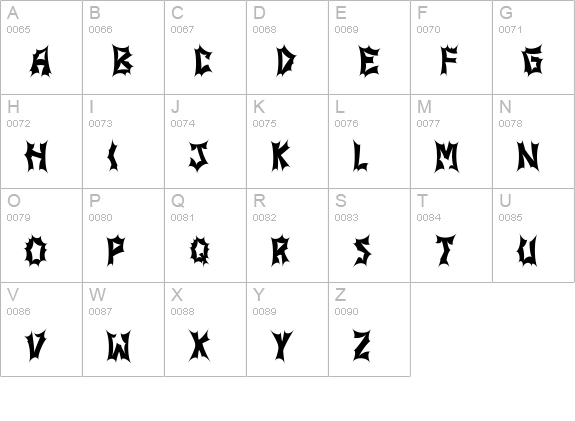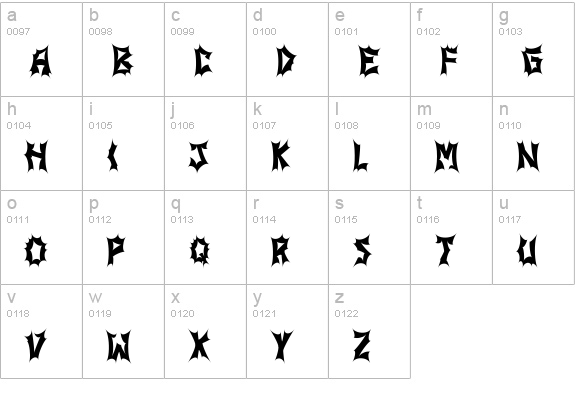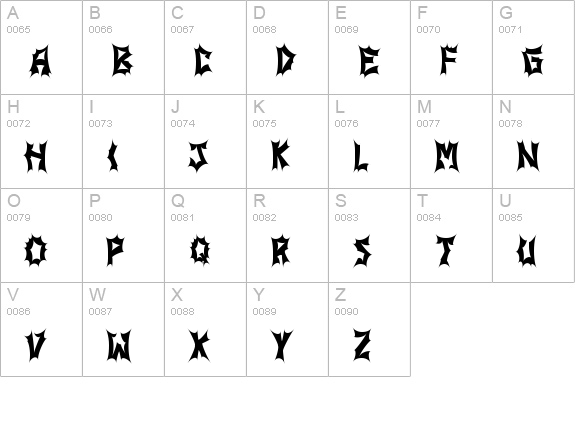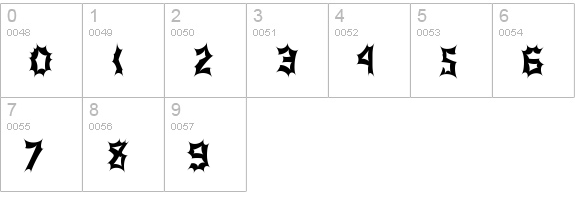
JI Stickerbush Caps Font Details
Introducing JI Stickerbush Caps, a captivating and versatile font that is sure to add a touch of creativity and uniqueness to any project. With its intricate and playful letterforms, this font is perfect for capturing attention and making a statement. JI Stickerbush Caps combines the beauty of hand-drawn elements with the precision of digital design, resulting in a font that seamlessly blends the organic with the modern. Its bold and eye-catching characters are carefully crafted to convey a sense of energy and excitement, making it an ideal choice for headlines, logos, posters, and more. This font offers a wide range of uppercase letters, each adorned with intricate details and stylized accents. The letters are carefully kerned, ensuring a balanced and harmonious composition. Whether you're designing a trendy apparel brand, crafting an eye-catching invitation, or creating a captivating social media post, JI Stickerbush Caps will elevate your design with its unique charm. What's more, JI Stickerbush Caps is available for free download exclusively at FontsMarket.com. This means that you can enjoy the striking beauty and versatility of this font without any cost. FontsMarket.com prides itself on offering high-quality fonts that can enhance your creative projects, and JI Stickerbush Caps is no exception. So why wait? Download JI Stickerbush Caps today and unlock a world of endless possibilities for your designs. Whether you're a professional designer or a passionate hobbyist, this font is sure to become your go-to choice for adding a touch of originality and flair to your work. Don't miss out on this incredible opportunity to freely enhance your creative endeavors with JI Stickerbush Caps, available exclusively at FontsMarket.com.